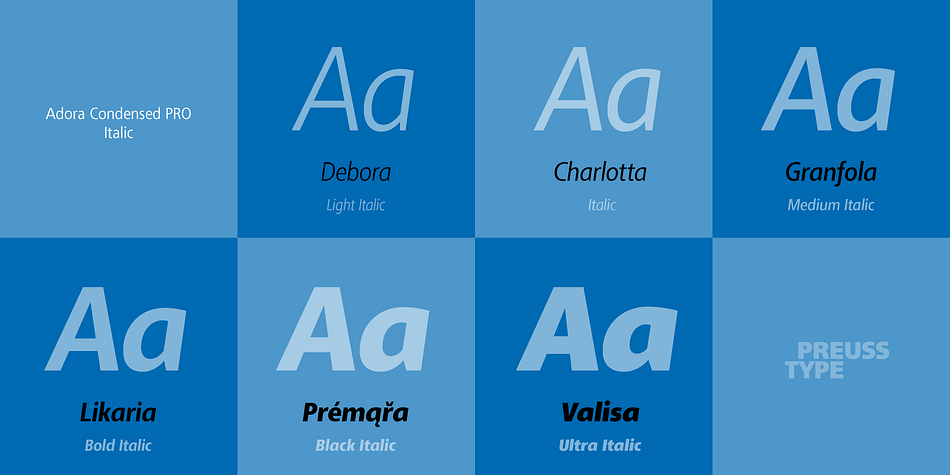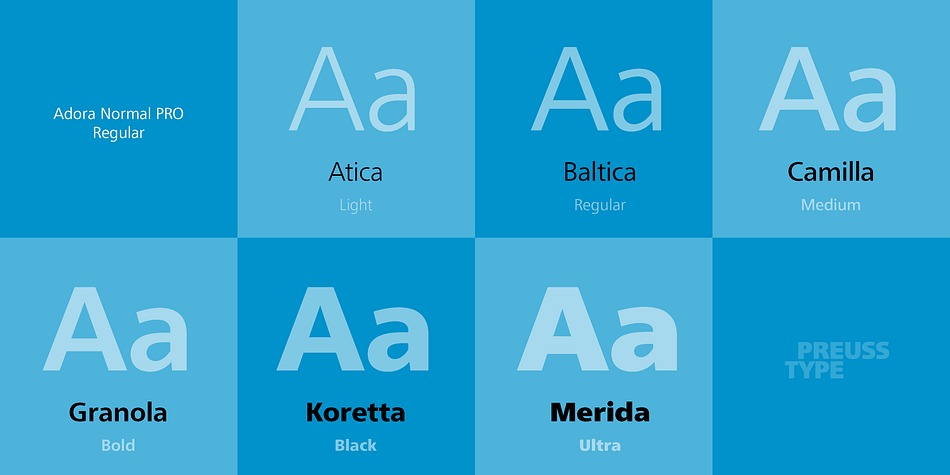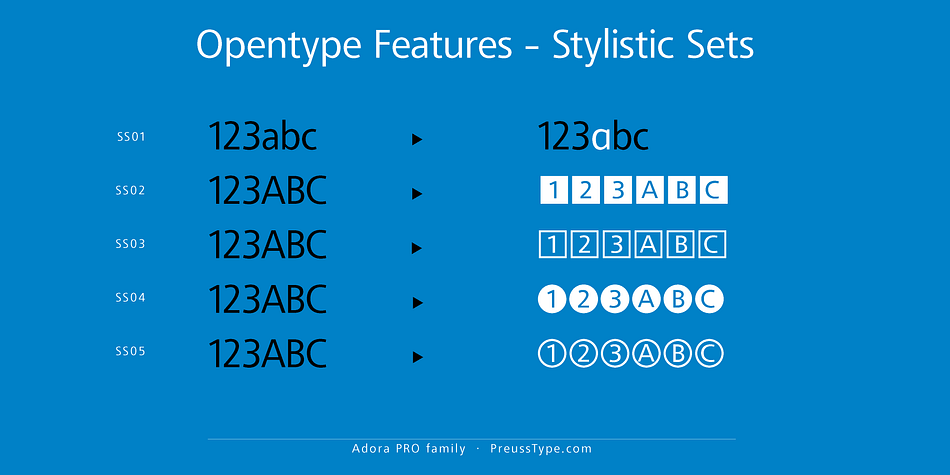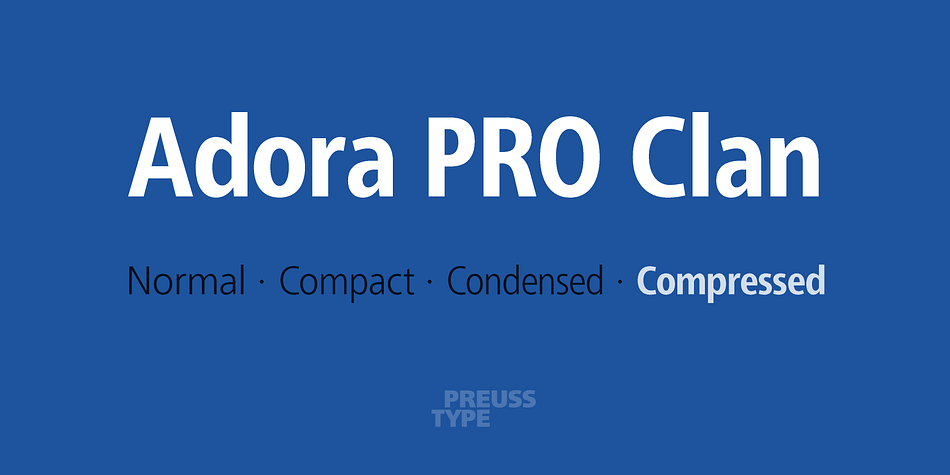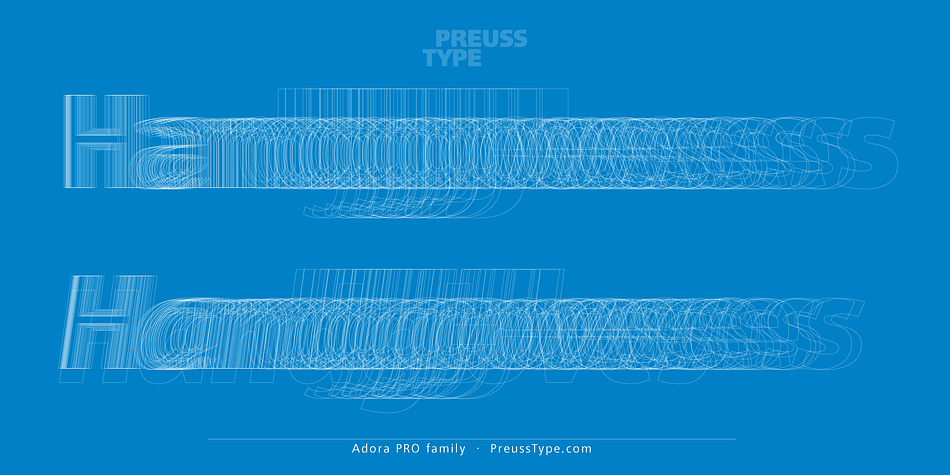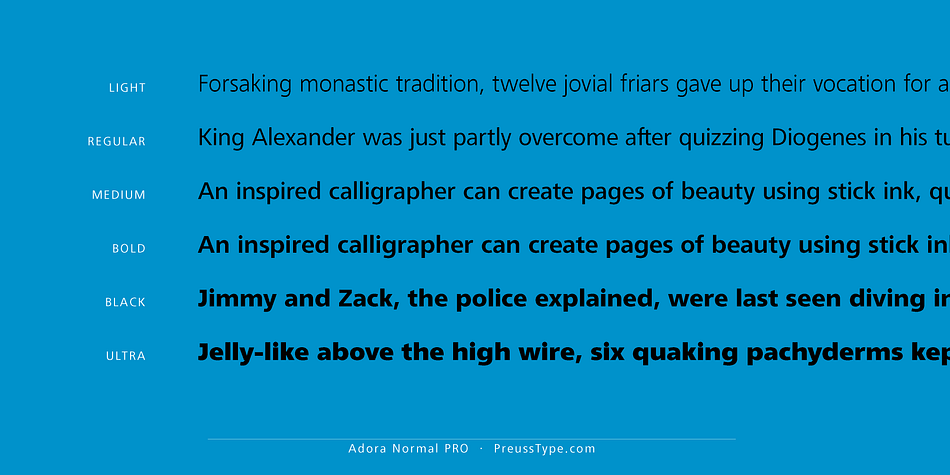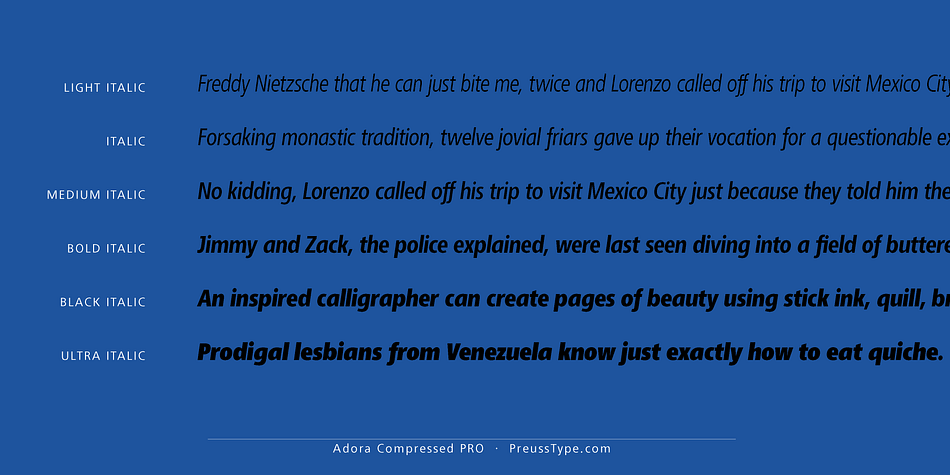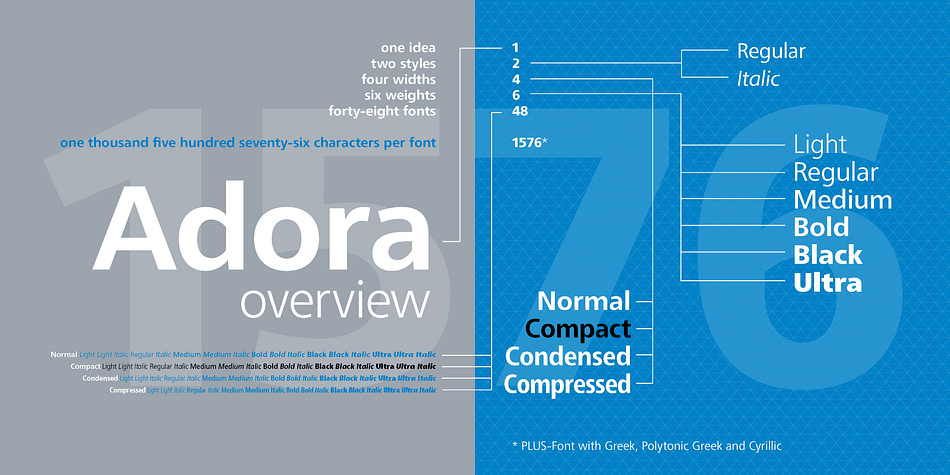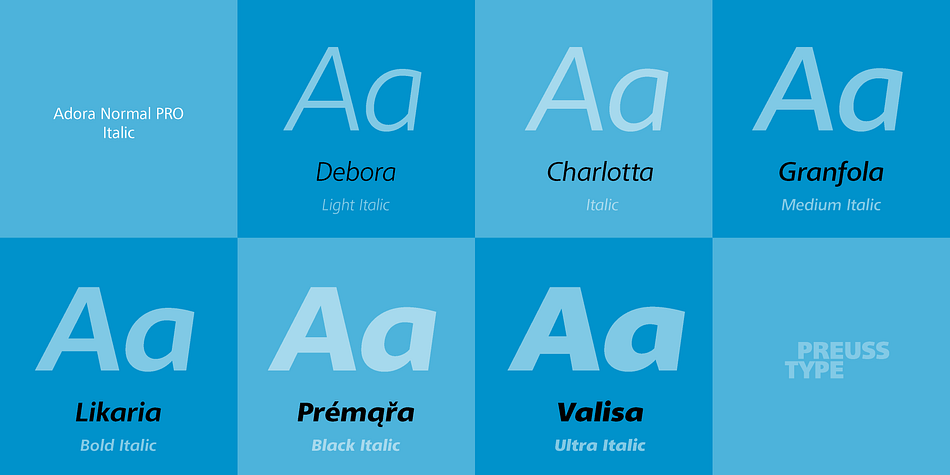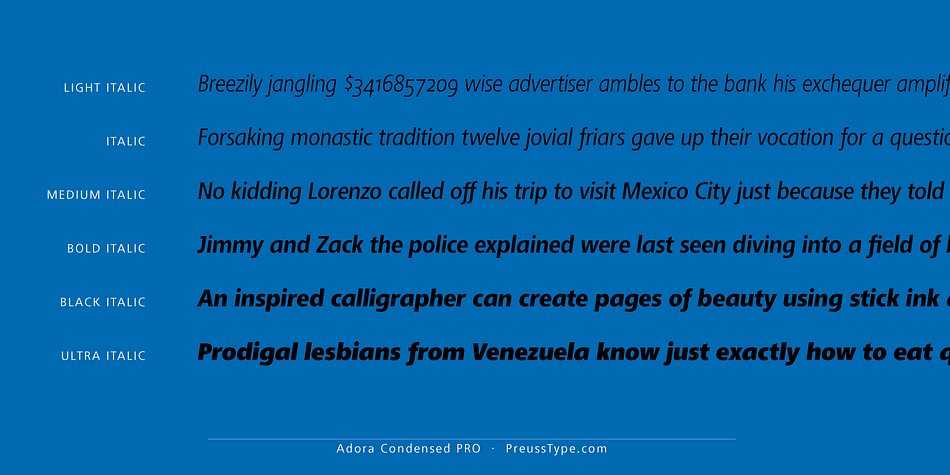
Adora PRO is a sans serif font family. This typeface has forty-eight styles and was published by preussTYPE.
German type designer Ingo Preuss created this sans Super-family between 2010 and 2015.
The family has 84 weights, ranging from Light to Ultra in Normal, Compact, Condensed and Compressed (including italics).
It comes in OpenType format with extended language support. All weights contain ligatures, superior characters, proportional lining figures, tabular lining figures, proportional old style figures, lining old style figures, matching currency symbols, fraction- and scientific numerals and matching arrows.
The Adora PRO family is ideally suited for advertising and packaging, editorial and publishing, logo, branding and creative industries, poster and billboards, small text, wayfinding and signage as well as web and screen design.